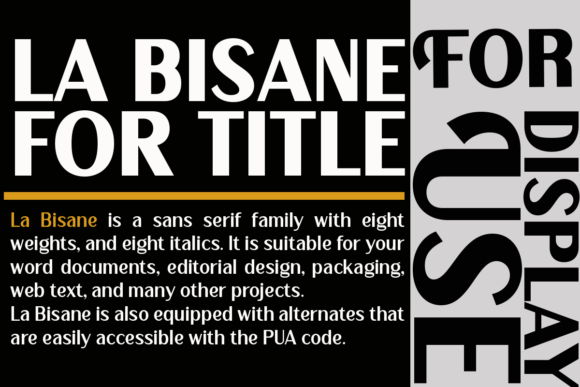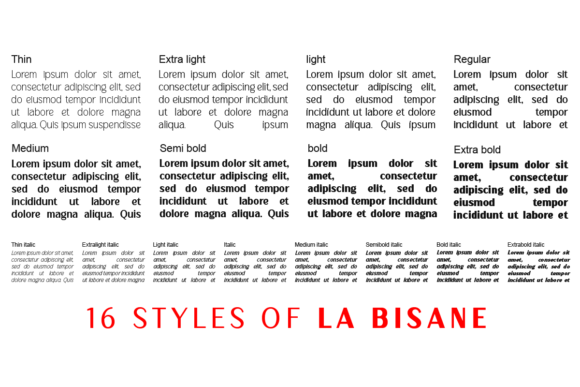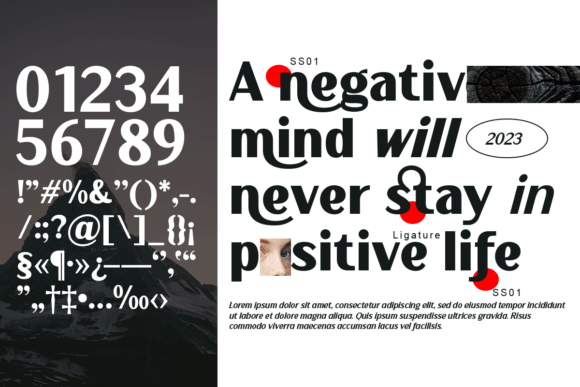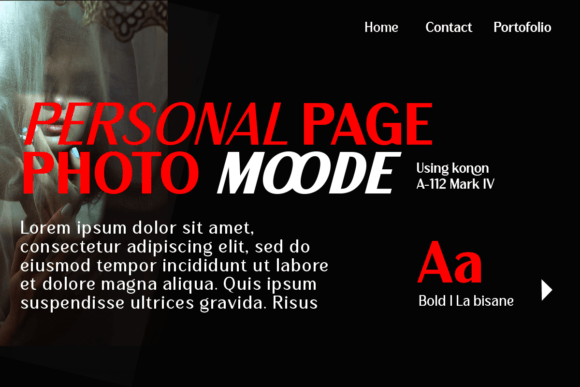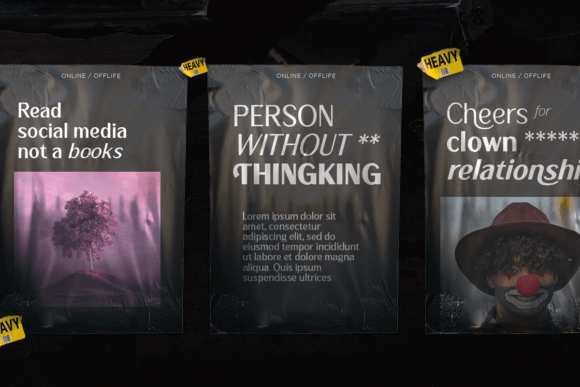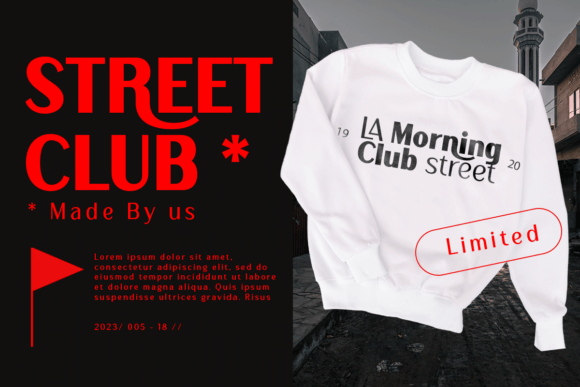
Introduction to La Bisane Font
Have you ever found yourself stuck on a design project, searching for that perfect font to bring your creative vision to life? I’m sure you have. It’s that moment when you finally stumble upon the right design resource, and everything falls into place. For designers, the right font can be the difference between a good design and a great one.
Enter La Bisane Font, a stunning display font that’s sure to elevate your next creative project. With its sleek lines and elegant flair, La Bisane Font is perfect for everything from editorial designs to packaging and web texts. And the best part? It’s available for a free download, making it an invaluable addition to any designer’s toolkit.
Whether you’re working on a high-quality design project or simply looking for a new font to spice up your work, La Bisane Font is definitely worth checking out. In this article, we’ll take a closer look at what makes La Bisane Font so special, including its PUA encoded features that make it easy to access all the glyphs and swashes you need.
Key Features of La Bisane Font
- La Bisane Font is a high-quality design resource ideal for creative projects.
- Features a unique, elegant design with a range of styles and weights.
- High-resolution font files ensure crisp and clear display, even at large sizes.
- Perfect for use in logos, branding materials, and other creative projects where a sophisticated font is required.
Honest Review: La Bisane Font
As a designer, I’m always on the lookout for high-quality design resources that can elevate my creative projects. Recently, I had the chance to try out the La Bisane Font, and I’m excited to share my honest review with you.
- ✨ Unique and elegant design style that adds a touch of sophistication to any project
- ✨ High quality font that is perfect for printing or digital use
- ✨ Transparent background, allowing for easy customization and flexibility
- ⚠️ Limited font sizes and styles, which may not be ideal for complex or multi-page projects
- ⚠️ Not ideal for use on very small screens or devices, due to its elegant but delicate design
Overall, I’m impressed with the La Bisane Font’s high quality and elegant design. While it may have some limitations, it’s an excellent choice for designers who need a sophisticated and high-quality font for their creative projects. With its free download and transparent background, it’s definitely a valuable addition to any design resource library.
La Bisane Font Overview
La Bisane Font is a high-quality design resource that can elevate your creative project. This free download is perfect for designers and artists looking for a unique and versatile font.
Tips for Getting the Most Out of La Bisane Font
To get the most out of La Bisane Font, try using it with a transparent background to create a unique and eye-catching design. Experiment with different font sizes and styles to add depth and interest to your project.
La Bisane Font is perfect for a variety of projects, including:
- Posters